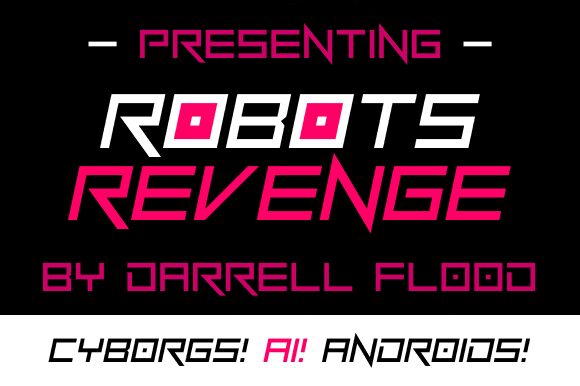
Robots Revenge
Robots Revenge, the stunning display font designed by Hawtpixel, is a futuristic typeface that will bring your projects to life. With its semi-light weight and expanded width, this font is perfect for titles, headlines, posters, and branding projects. The bold and expressive letters of Robots Revenge will give your designs a modern edge that is sure to stand out. Whether you're working on a sci-fi movie poster or a tech company's website design, this font will add a touch of innovation and creativity to your work. Let Robots Revenge be the weapon in your design arsenal!